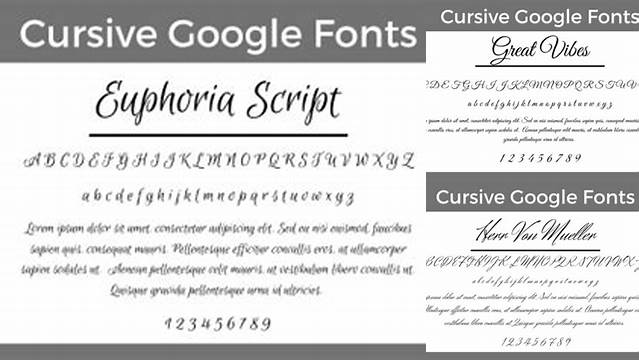
Discover Amazing Free Cursive Fonts On Google
Hey everyone! Are you on the hunt for the perfect cursive font, but don't want to break the bank? Well, you're in luck! Google Fonts is a treasure trove of amazing, free cursive fonts, and today, we're diving deep to uncover some of the best options out there. Whether you're a designer, a blogger, or just someone who loves the elegance of cursive, this guide will help you find the ideal font to make your projects shine. From romantic scripts to modern calligraphic styles, we'll explore a variety of options that are easily accessible and ready to download. We'll also cover how to actually use these fonts in your projects, so you can start creating beautiful designs in no time. So, grab a coffee, get comfortable, and let's explore the wonderful world of free cursive fonts on Google!
1. What are Free Cursive Fonts and Why Use Them?
First things first, what exactly are free cursive fonts? Simply put, these are fonts that mimic handwriting, with letters flowing together in a connected style. They're often used to add a touch of elegance, personalization, or a vintage feel to your designs. Why should you use them? Well, for starters, they can dramatically change the look and feel of your project. Think about it: a formal invitation looks much more sophisticated with a beautiful cursive font than a plain sans-serif. They're also great for adding a human touch to your work, especially in a digital world where everything can feel a little sterile. They’re very practical and available. They are freely available on Google Fonts, so you can download and use them without any licensing headaches or fees. This accessibility makes them perfect for both personal and commercial projects. It also adds a visual interest, especially in a world dominated by blocky, sans-serif fonts. A well-chosen cursive font can make your designs pop and grab attention. The right one can also evoke emotions, from romance and nostalgia to professionalism and luxury. Finally, using a cursive font can also help you to express yourself and convey your unique personality. After all, your choice of font is a part of your brand and identity. They are not only cost-effective but also allow for creative freedom and help you make an impression.
3. Top 10 Free Cursive Fonts to Download From Google Fonts
There are literally hundreds of free cursive fonts available, but here are ten of the most popular and versatile options, perfect for a variety of projects:
- Dancing Script: This is a classic, friendly script font. It's great for headings, quotes, and adding a touch of personality to your designs. It looks great at any size, making it versatile for print and digital projects.
- Great Vibes: A more elegant and flowing script that is perfect for invitations, logos, and anything that needs a touch of sophistication. It's a favorite for wedding designs and branding.
- Kaushan Script: A lively and informal script that's perfect for adding a playful touch. It’s great for children's books, fun blog posts, and creative projects.
- Pacifico: Inspired by the surf culture of the 1950s, Pacifico is a bold and eye-catching script. It’s ideal for vintage-themed designs, posters, and branding.
- Rochester: A vintage, elegant script with a formal appearance. Perfect for adding a classic touch to invitations, certificates, and other formal documents. It is great for a polished look.
- Allura: A more modern and stylish script, with a flowing design that is excellent for branding and headlines. The smooth lines make this an excellent choice for a contemporary feel.
- Cookie: A fun and whimsical script, perfect for adding a lighthearted touch. It’s great for children's books, playful websites, and casual designs.
- Sacramento: This is an elegant and refined script. It's perfect for adding a touch of class to any design. Great for quotes or short text passages.
- Tangerine: A beautiful, flowing script with a vintage feel. It's ideal for invitations, wedding designs, and anything that requires a touch of romance.
- Alex Brush: A very elegant and graceful script font, excellent for headings, logos, and stylish designs. It’s perfect for adding a touch of sophistication and luxury.